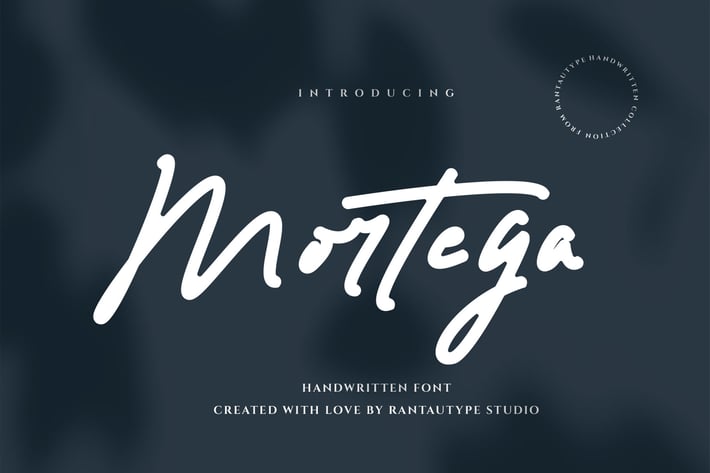
Mortega Handwritten Font
Mortega is a natural handwritten font with stylish curve. Stylish curve make mortega font look modern and make your design stand out. Sergia come with alternate, ligature and already support multingual accent character.
Mortega is perfectly choice for any creative endeavor, chic, lifestyle design such as logos, title, watermark on photography, cover, branding, display and magazine, wedding event, corporate brand, quotes, album cover, business card, business project and many other design project with handwritten taste.
Standart Gylphs
Ligature and alternate